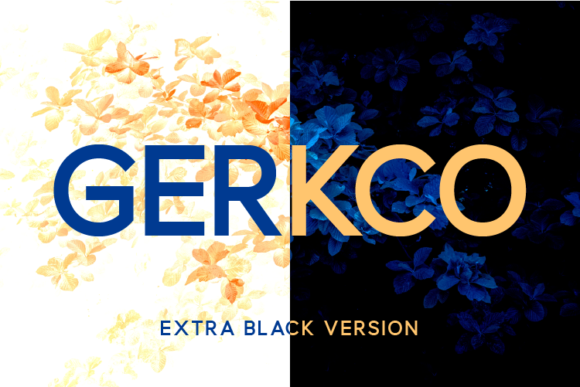
Behold Gerkco Extra Black, a font that embodies modernism, sophistication, and poise. Its clean lines and minimal curves create a visual tranquility that captivates the eye. Designed by the talented Huntype, this sans serif font exudes timeless beauty, ideal for both digital and print media.
Immerse yourself in its versatility and let your creativity soar. Design logos that exude professionalism, social media graphics that pop with vibrancy, or book covers that speak volumes before the first page is turned. Gerkco Extra Black is the perfect choice for any project that demands attention with an understated grace. It's the ideal font to imbue your projects with a balanced, contemporary aesthetic.
With its classic yet distinctive style, Gerkco Extra Black adds an aura of sophistication to any design. Its clean letterforms and perfectly spaced characters ensure readability without sacrificing visual appeal. Whether you're crafting an invitation, developing a website, or creating packaging materials, Gerkco Extra Black ensures your message is communicated with clarity and charm.
More than just a font, Gerkco Extra Black is an artistic tool that elevates your creative vision. Its versatility allows it to seamlessly adapt to diverse themes and aesthetics. From sleek and minimalist designs to playful and whimsical ones, this font effortlessly complements your artistic style. Its unique letterforms add a touch of personality to your work, making it stand out from the crowd.
Join the ranks of designers, artists, and creative professionals who have discovered the transformative power of Gerkco Extra Black. Its elegant simplicity and timeless appeal will add a touch of sophistication and intrigue to your creative endeavors. Embrace the beauty of modernism and let Gerkco Extra Black inspire your next masterpiece.